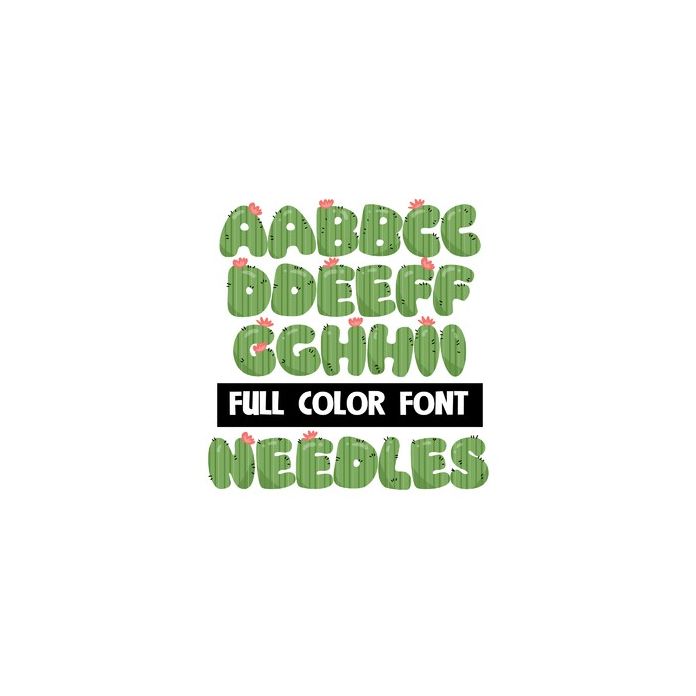
This full-color font features green stripes and needles. The uppercase has florals. Overall, it has a very cacti like feel. This font works best for titles, displays, posters and more. Please note color fonts will show as black in non compatible programs. This font type is compatible with Silhouette